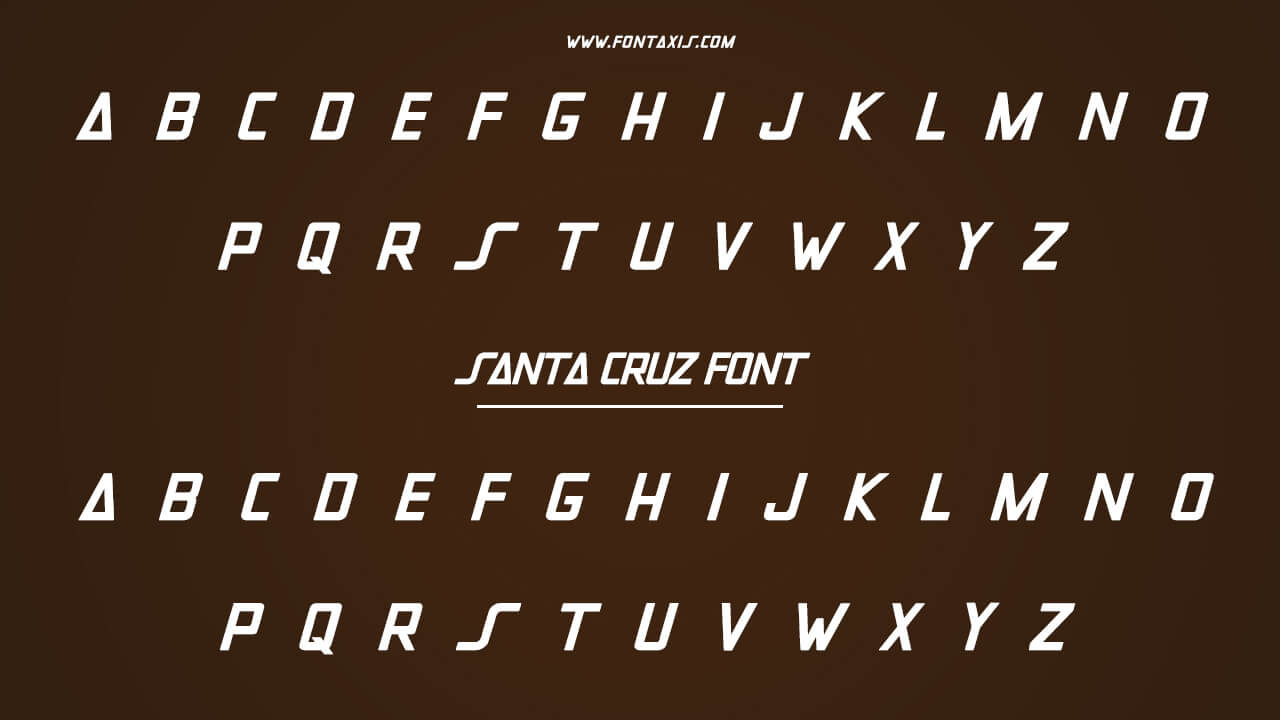
The Santa Cruz Font is a bold and iconic typeface closely tied to the Santa Cruz Skateboards brand. Kirk Shelton designed it and draws inspiration from the Santa Carla Font.
This font was initially created for the Santa Cruz logo and has become a defining feature of the brand. The Santa Cruz Font is known for its bold graphics and unique style.
It has become a symbol of the skateboarding industry and reflects the vibrant culture of Santa Cruz Beach and the surrounding area. The font is also commonly seen in attractions like the Mystery Spot and along the Santa Cruz Beach Boardwalk, making it a key part of the region’s energetic and creative identity.
Santa Cruz Font Overview
| Name | Santa Cruz Font |
| Style | Decorative/Display |
| Designer | Kirk Shelton |
| Type | Display Font |
Santa Cruz Font Family Includes
- Santa-Cruz Regular
Where Santa Cruz Font Is In Use
- Skateboard brand logos (Santa Cruz Skateboards)
- Streetwear designs and clothing graphics
- Urban and retro graphics, especially in the skateboarding community
- Stickers and promotional material for skateboarding events
- Branding for NHS Inc., the parent company of Santa Cruz
- Used in Santa Cruz Beach and Santa Cruz County branded materials
- Bebas Neue: A clean and modern sans-serif font that contrasts well with Santa Cruz Font’s bold, artistic design.
- Montserrat: A versatile and professional font to pair with Santa Cruz Font’s retro, street-style vibe.
The Santa Cruz Font stands as a timeless symbol of skateboarding culture, embodying the bold, energetic spirit of the Santa Cruz Skateboards brand. Inspired by the Santa Carla Font and crafted by Kirk Shelton, has transcended its original purpose as a logo font for Santa Cruz Skateboards to become a symbol of creativity and individuality.
This font encapsulates the energy of the skateboarding community, the adventurous spirit of Santa Cruz Beach, and the artistic edge of urban design. From stickers to streetwear and promotional materials, the Santa Cruz Font delivers a dynamic aesthetic that resonates with fans and designers alike.
3.What Is The Best Way To Pair The Santa Cruz Font In Designs?
Use the Santa Cruz Font for bold, eye-catching headlines or logos for effective pairing and combine it with clean sans-serif fonts like Bebas Neue or Montserrat for body text or supporting design elements. This creates a sharp contrast, balancing the bold and artistic nature of the Santa Cruz Font with a more modern and professional aesthetic.
4.Where Is The Santa Cruz Font Most Commonly Used?
The Santa Cruz Font is widely associated with skateboarding culture and is prominently used in Santa Cruz Skateboards branding. It appears on their logos, stickers, and promotional materials. Beyond skateboarding, it is also popular in streetwear designs, urban graphics, and retro-themed branding. Its bold and iconic style makes it ideal for projects that need a dynamic and energetic look.
5.What Is The Origin Of The Santa Cruz Font?
The Santa Cruz Font is derived from the Santa Carla Font, designed by Kirk Shelton specifically for the Santa Cruz Skateboards logo. Over time, the font has become a cultural icon in the skateboarding industry, reflecting the adventurous and creative spirit of Santa Cruz County.
10.Is The Santa Cruz Font Suitable For Large-Scale Printing?
The Santa Cruz Font is well-suited for large-scale printing projects, such as banners, posters, or event signage. Its bold and clear design ensures readability and impact even at larger sizes, making it ideal for promotional materials and displays.